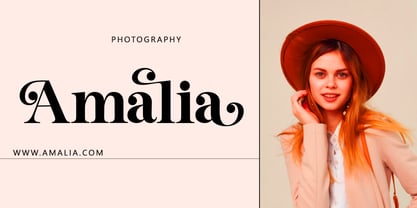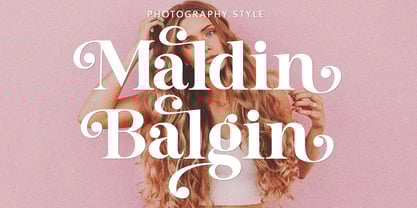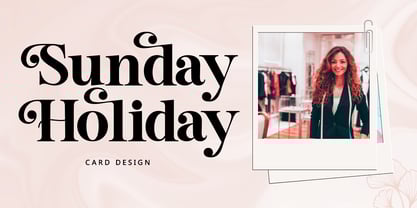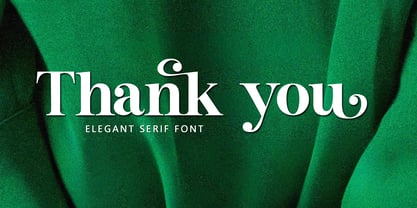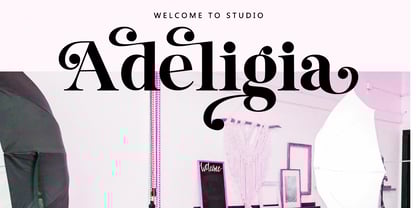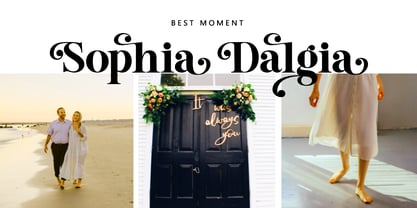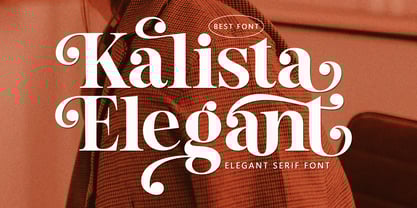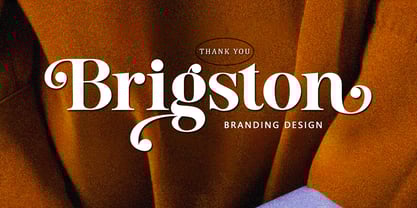
Kalista Elegant
The Kalista Elegant Font Family was designed by Muhammad Nazar and published by Bungletter. Kalista Elegant contains 1 styles.
Introducing Kalista Elegant, a stunning serif font that wants to be the center of attention. Use this elegant and refined serif for large-scale headlines, big text moments, or eye-catching quotes.
Kalista Elegant is an elegant serif typeface created to be the center of attention. With stunning contrast, organic curves, and crisp lettering, Kalista Elegant is a phenomenal choice for any project, whether focused on luxury branding or typefaces. This font is perfect for many projects, for modern or even retro vintage designs, branding, logos, crafts, stickers, sublimation, wedding invitations and more. This font is suitable for various projects such as logos, brands, magazines, signage, fashion and more.
Contains a complete set of:
- Uppercase
- Lowercase
- Alternate
- Ligature
- Punctuation
- Numbers
Multilingual support.